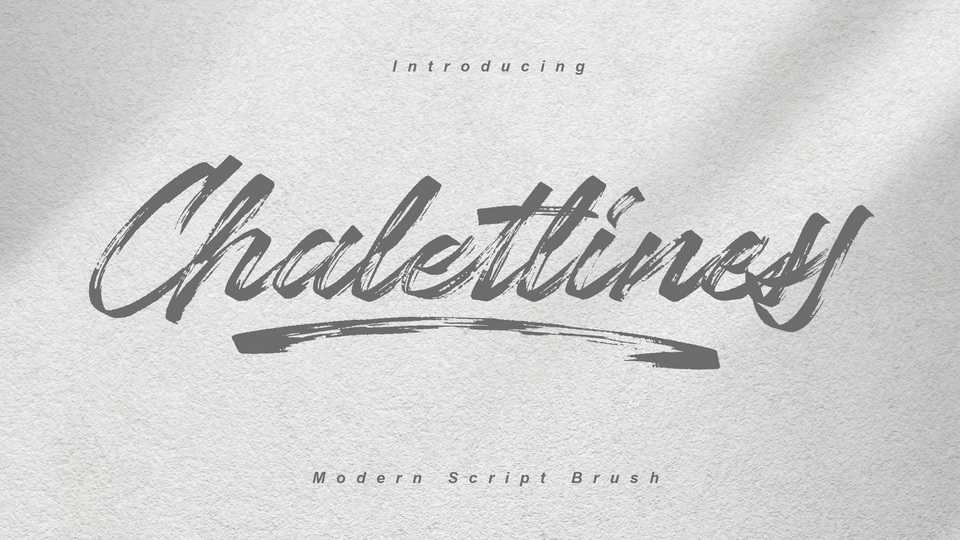
Download Chaletliness font, a script typeface that has its own unique brushed brush look, because it is handwritten manually. Chaletliness font is carefully crafted with a modern touch and looks natural and rustic.